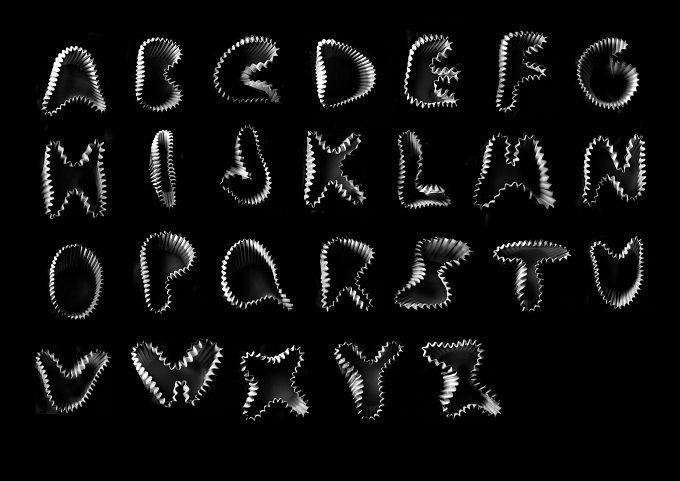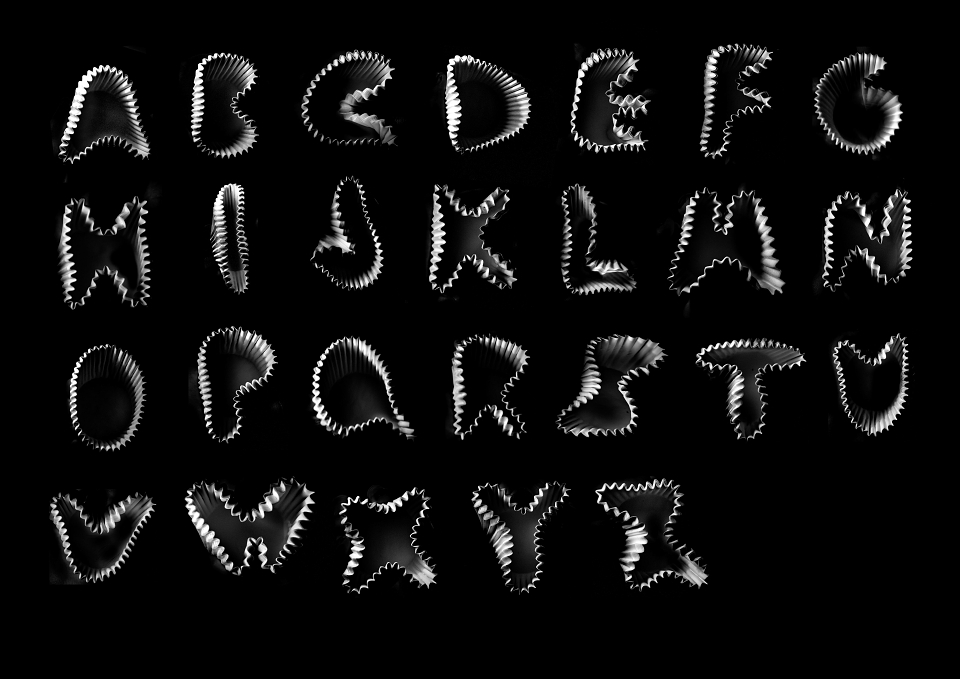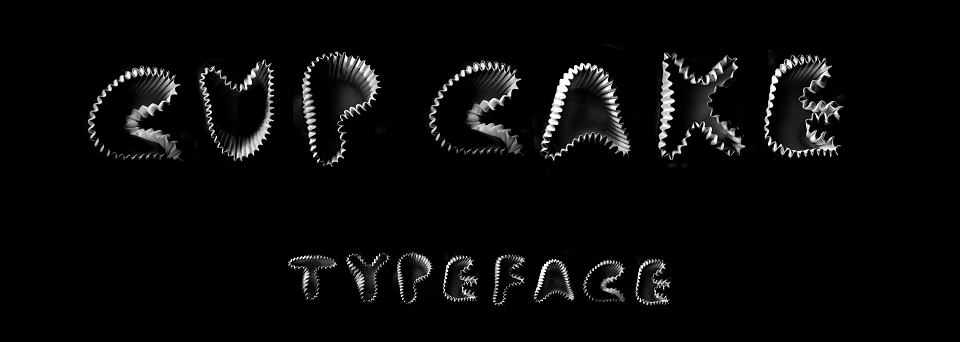
The contortions of the cupcake wrappers creates a typeface design with different shadowing and effects created with each letter. The typeface takes advantage of the natural shapes, textures and movments of the wrappers. By using multiple cupcake wrappers , it added more depth and defination to the font.
cup cake typeface